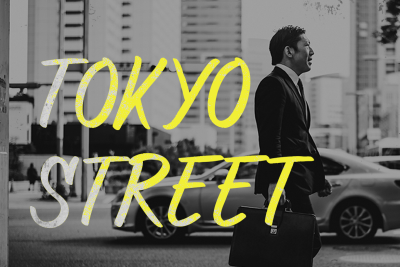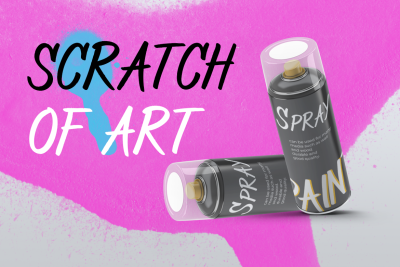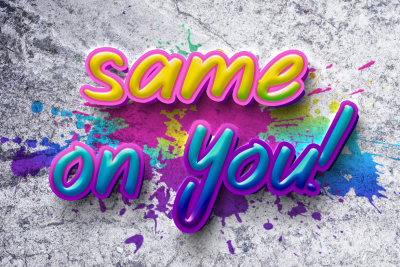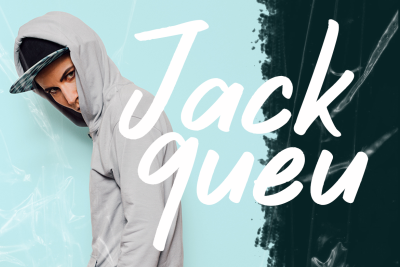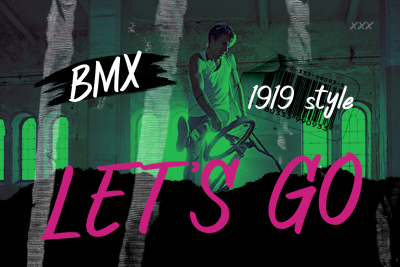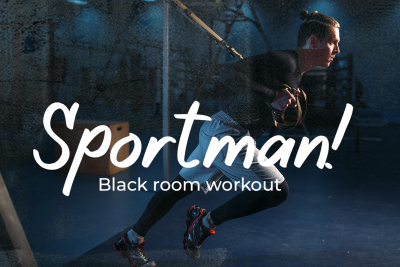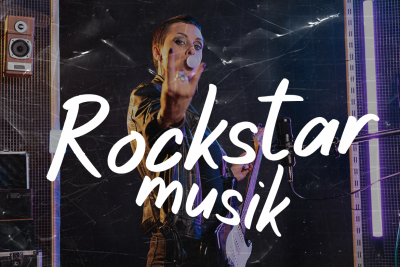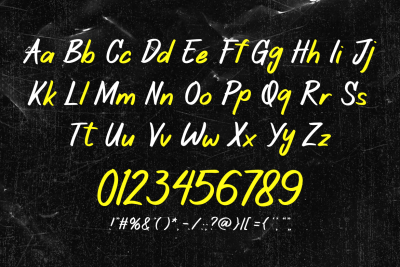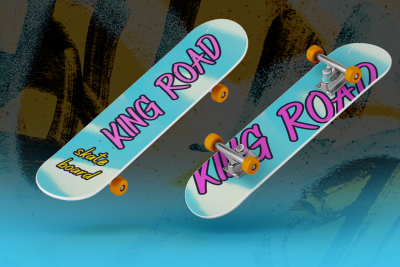
Handwriting font Gillian Joe is a stylish and modern script typeface that blends casual elegance with a natural handwritten feel. With its fluid strokes and slightly bold presence, this font captures the authenticity of hand-lettering while maintaining a refined and versatile look. Moreover, its smooth curves and expressive characters make it perfect for designs that require a sophisticated yet relaxed vibe.
Additionally, Gillian Joe stands out due to its well-balanced structure, ensuring both readability and artistic charm. The thick and thin variations within its strokes add a personal touch, making it feel natural and dynamic. Whether youโre designing for branding, fashion, or digital content, this font provides a timeless and contemporary appeal. Furthermore, its adaptability allows it to shine across multiple mediums, from print materials to social media graphics. Whether used for elegant logo designs, creative quotes, or stylish invitations, this font ensures a bold and memorable presence.
Handwriting Font Gillian Joe Perfect For
Gillian Joe is an excellent choice for designers, entrepreneurs, and creatives looking for a versatile yet expressive script font. Specifically, it works best for the following applications:
- Branding and Logo Design: For example, use it for fashion labels, beauty brands, and boutique businesses. Its stylish handwritten strokes add personality and sophistication.
- Social Media Graphics and Influencer Branding: Similarly, apply it to Instagram posts, YouTube banners, and influencer branding. Since the font has a smooth and modern aesthetic, it creates a visually appealing and engaging presence.
- Wedding Invitations and Event Stationery: In particular, it is perfect for wedding invites, RSVP cards, and elegant event posters. The handwritten style adds a personal and luxurious feel.
- Editorial and Magazine Layouts: Additionally, use it for feature articles, magazine covers, and stylish blog headers. Because of its dynamic script, it enhances readability while maintaining a high-end look.
- Handwritten Quotes and Typography Art: Likewise, apply it to inspirational posters, greeting cards, and home decor prints. The elegant flow makes every phrase look artistic and meaningful.
- Luxury Packaging and Product Labels: Furthermore, it works well for perfume brands, organic beauty products, and artisanal goods. The fluid and graceful lettering enhances the perception of quality and craftsmanship.
- Merchandise and Apparel Designs: Finally, use it for T-shirt designs, mug prints, and lifestyle brand logos. The combination of modern script and natural movement makes it a fantastic fit for trendy and stylish products.
Overall, Handwriting font Gillian Joe is the perfect typeface for projects that require an elegant, handwritten touch. Thanks to its fluid strokes and contemporary feel, it enhances everything from branding to creative typography. Whether you’re designing social media content, wedding stationery, or high-end packaging, this font ensures a classy and sophisticated impact.